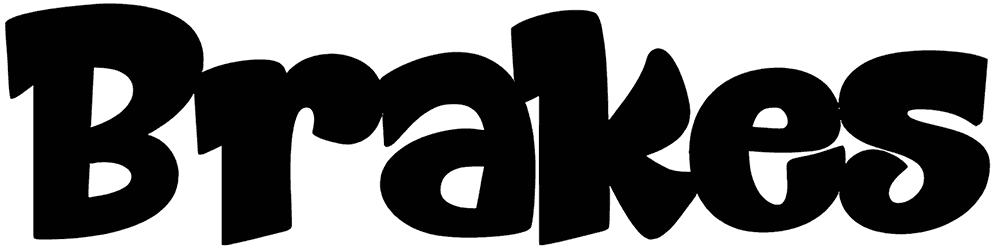
Brakes Font
Brakes is a graffiti font with a very different look and atmosphere, made with love and joy. This cartoon font‘s comic and happy appearance can help all your designs look beautiful, cute, fun, and colorful.
So if you want to add a friendly, cheerful, and playful accent to your writing that will attract anyone to your posters, packaging, advertisements, and any design without numbers, this fun script font can help you a lot.